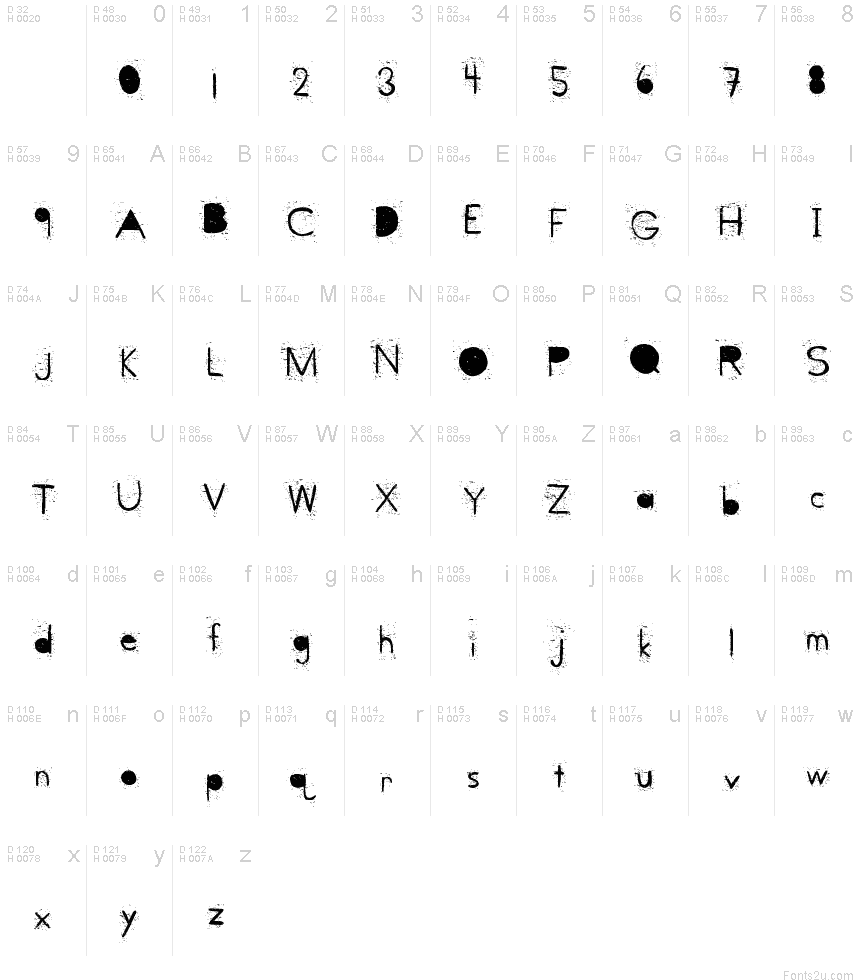
Bang Party by Xerographer Fonts is a free distressed display font with an unruly, cut-and-pasted silhouette. Stroke widths swing sharply between spindly lines and dense shapes, and the uneven contours look scraped and ink-splattered. No two forms settle into the same posture.
The rough punk-poster character makes it a convincing choice for gig flyers and album artwork. Its fractured texture can also suit skate merchandise and underground event graphics, especially when the lettering should feel deliberately damaged. In these settings, the alphabet can become part of a torn-paper collage or photocopied surface rather than acting as neutral type.